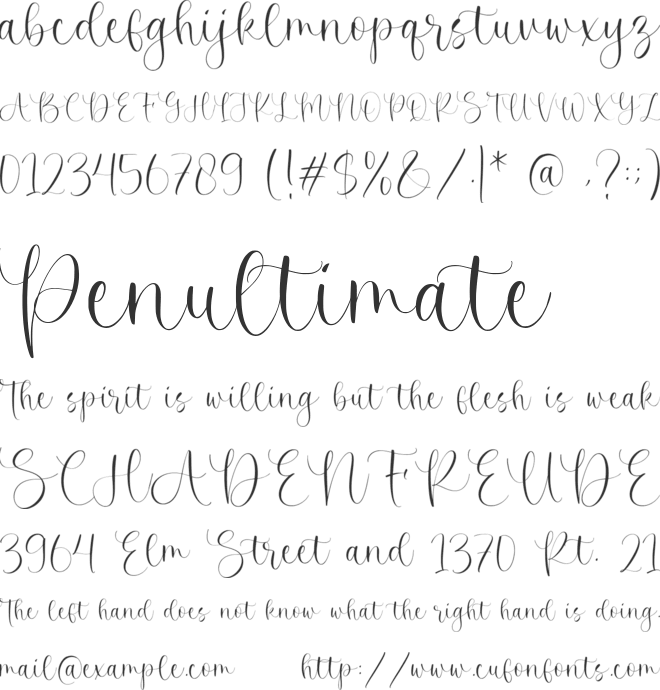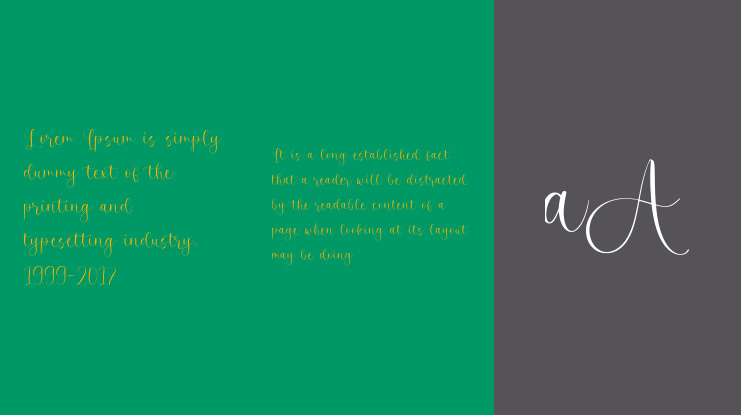
Wisterian Font
Wisterian is a gorgeous script font that exudes beauty and sophistication.
Experience the remarkable allure of Wisterian, an elegant script font that will bring a sense of refinement and allure to your creative endeavors. Featuring graceful curves and a captivating tail, Wisterian is ideal for captivating audiences and evoking a magical atmosphere.
- Also includes multilingual support